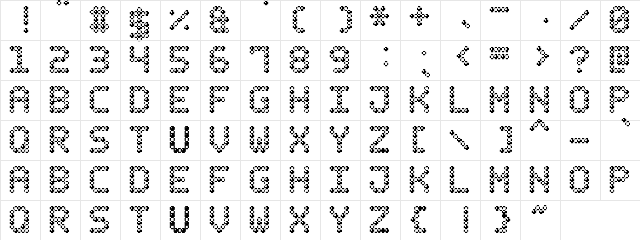
Bubble Pixel-7 Regular
| Foundry | Style-7 |
| Designer | Sizenko Alexander |
Design Context for Bubble Pixel-7 Typeface
Bubble Pixel-7 celebrates the constraints of early digital type, turning pixel geometry into a distinctive and immediately recognisable style.
Well-suited to indie game interfaces, retro computing aesthetics, and pixel art-adjacent design work.
Pro Tip: Use Bubble Pixel-7 at sizes that align with its pixel grid for the sharpest rendering — scaling to non-integer multiples can introduce unwanted blur.